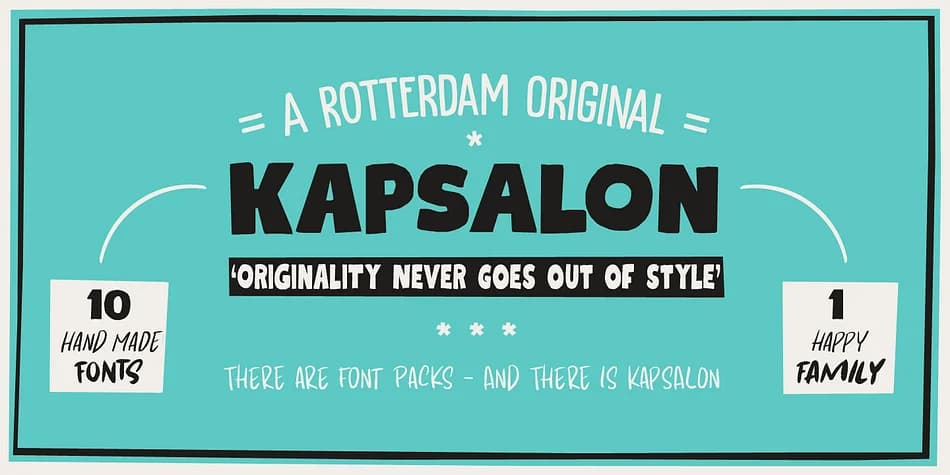
KAPSALON by Hanoded is a display typeface that works like the Dutch street snack it's named after: a mix of seemingly unrelated elements that somehow fit together beautifully. The font blends diverse letterforms and styles into something cohesive, eclectic, and visually compelling. Its unpolished personality makes it particularly well suited for album covers and band merchandise, where you need authentic texture rather than corporate polish. Street food branding and indie magazine covers both benefit from KAPSALON's unapologetic refusal to follow the expected, safe path.
What makes this typeface truly special is how it maintains harmony despite its inherent variety. Each letter contributes something different to the overall mix while still working as part of a unified whole. You can use it for comic book lettering, boutique product packaging, vintage stationery design, or any project calling for handcrafted personality and genuine texture. The font doesn't aim for corporate sleekness or precision; instead it embraces rough, imperfect edges that make any work feel authentic and unpredictable in the best way. Designers working on pieces that need real character and personality will find KAPSALON delivers both in abundance. Pick up KAPSALON from Creative Fabrica and bring some unfiltered character to your next design project.
- Eye-catching, Bold
KAPSALON Font is a display font that shines as a display or heading face. Pair it with a clean sans-serif or serif font for body text โ the contrast creates a clear hierarchy while the two styles stay balanced and easy to read.